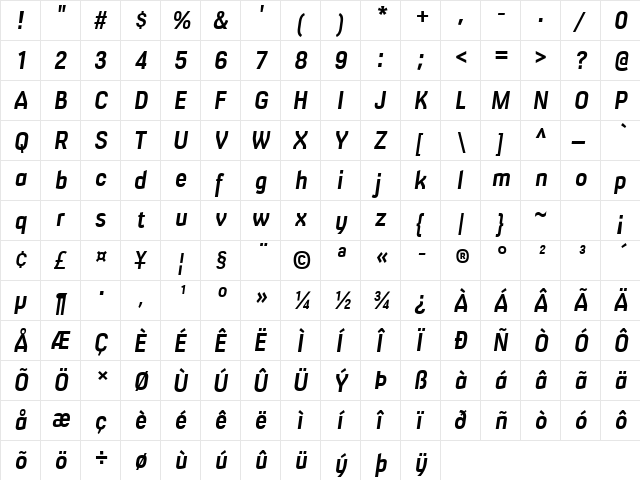
Milibus Rg Bold Italic Font Preview
Milibus Rg Bold Italic
Design Context for Milibus Rg Typeface
Milibus Rg is a composed and adaptable typeface that performs quietly and consistently across a wide range of design contexts. Its italic angle brings a sense of urgency and motion to the letterforms. Its bold stroke weight gives it real presence on the page.
Pro Tip: Use Milibus Rg for emphasis, pull quotes, and subheadings where its slanted energy can add rhythm to the layout.